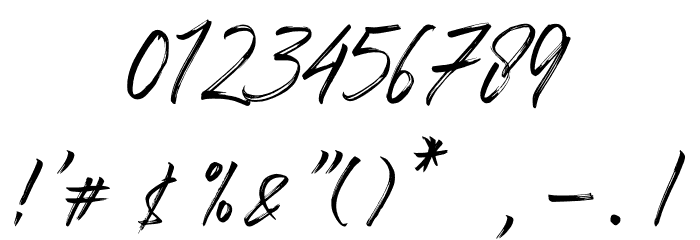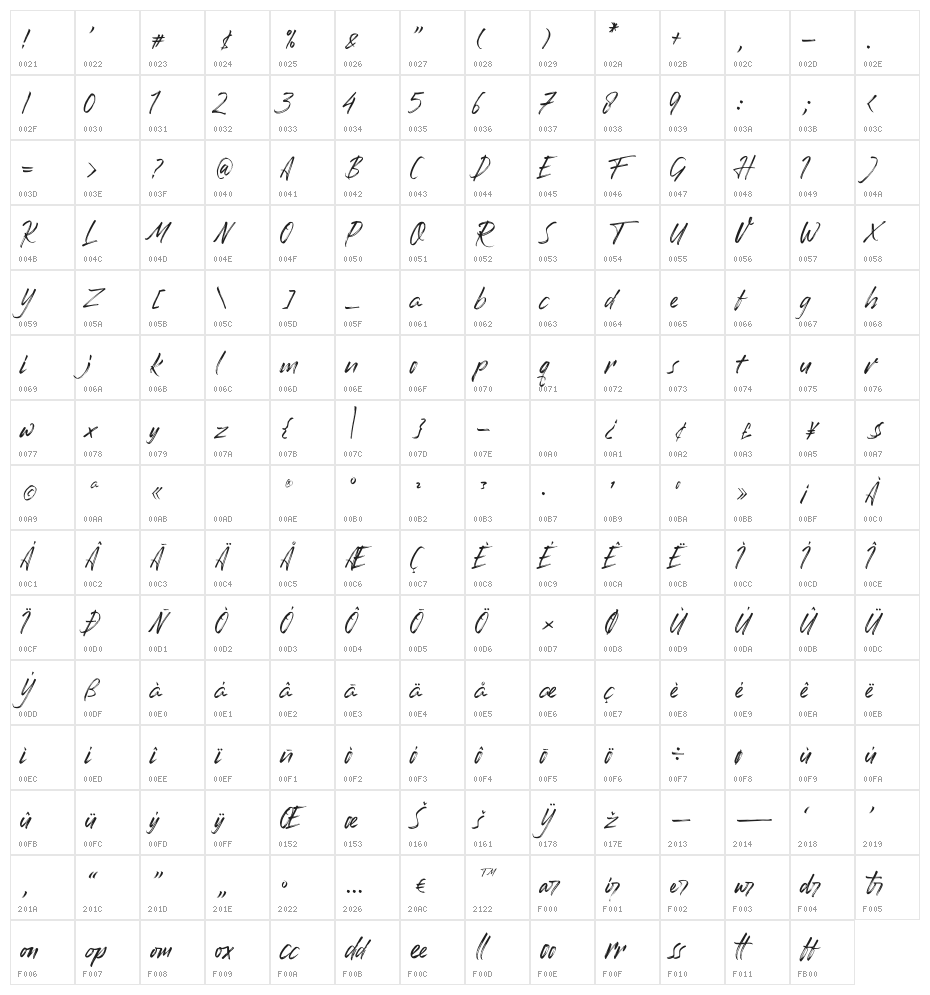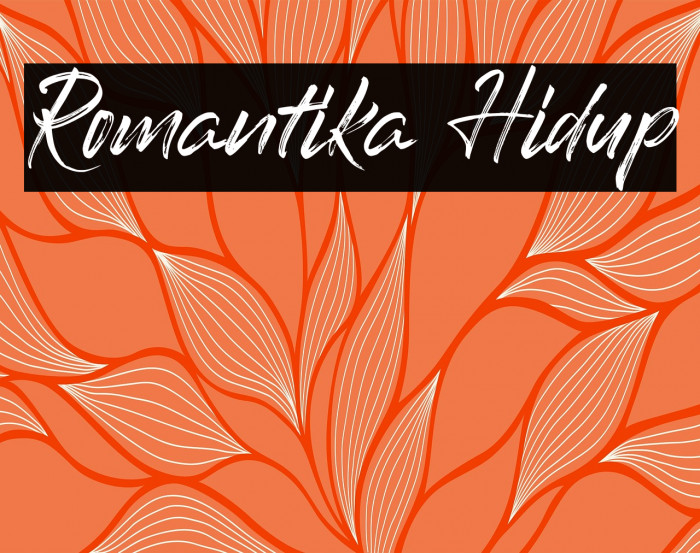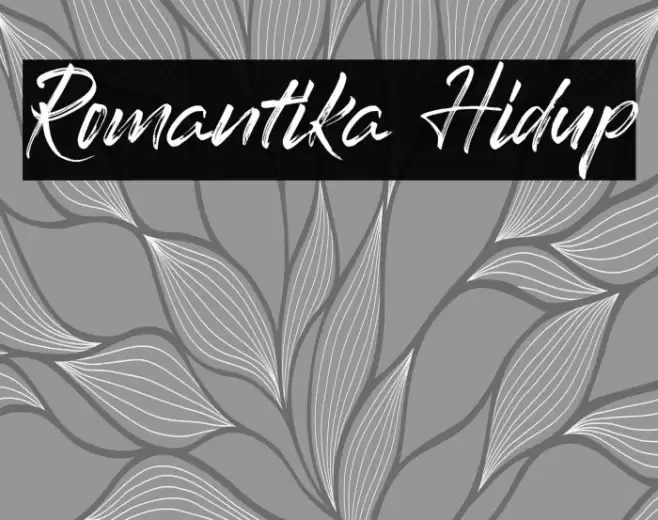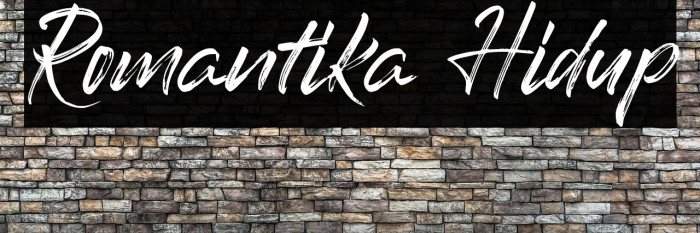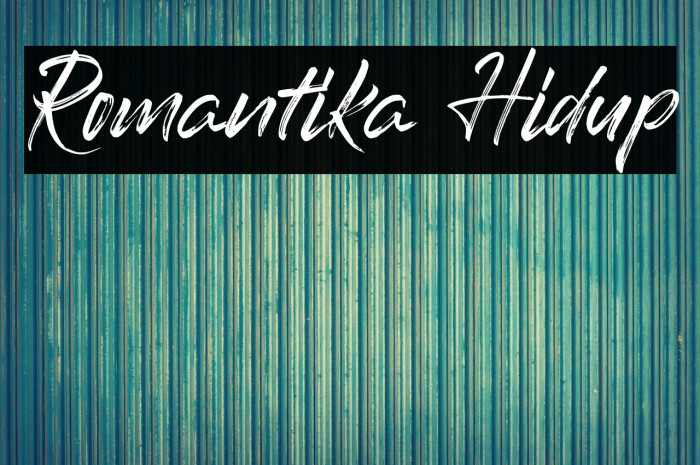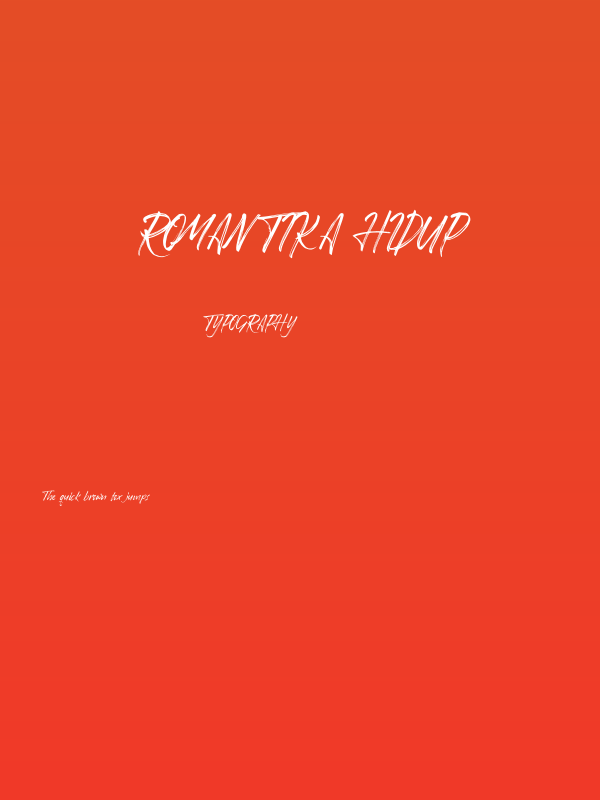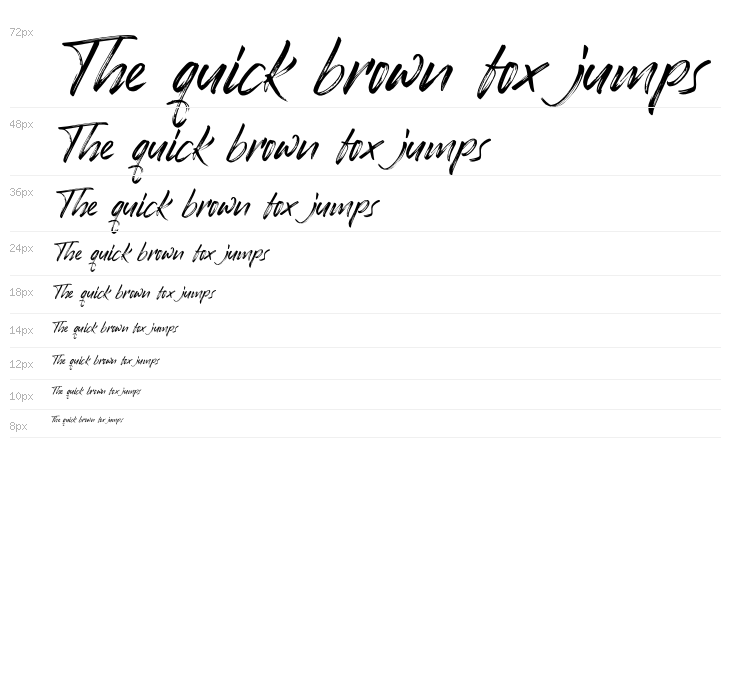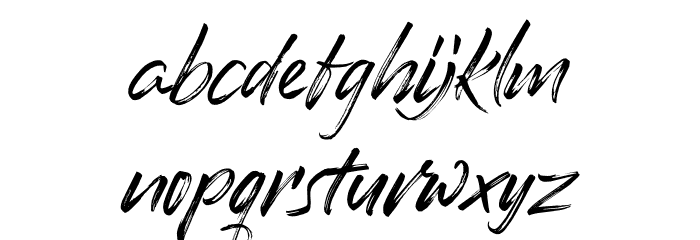
Romantika Hidup Font
Romantika Hidup Description
This font exudes a dynamic and energetic vibe, characterized by its fluid and expressive strokes. The letters are crafted with a calligraphic flair, featuring varying line thicknesses that add a sense of movement and elegance. The uppercase letters are bold and striking, while the lowercase letters maintain a consistent flow, enhancing readability. Numbers and special characters are designed with the same artistic touch, ensuring a cohesive look across all elements. The overall style is reminiscent of handwritten script, making it ideal for projects that require a personal and artistic touch.
| Use Case | Logos, Invitations, Artistic Projects |
| Proposed Projects | Ideal for wedding invitations, greeting cards, branding projects, and artistic posters. |